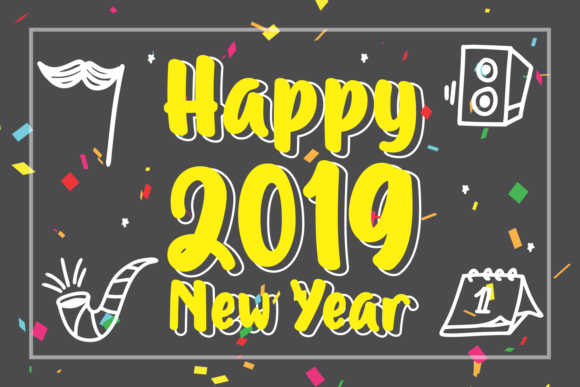
Merryah Font
About Merryah Font
The Merryah is a fun script font. Its characters have a playful feel and a perfect readability. The two includes versions, regular and italic, give you the opportunity to create multiple unique designs with just this one download.
Included as a bonus are fun doodles to complement your design.